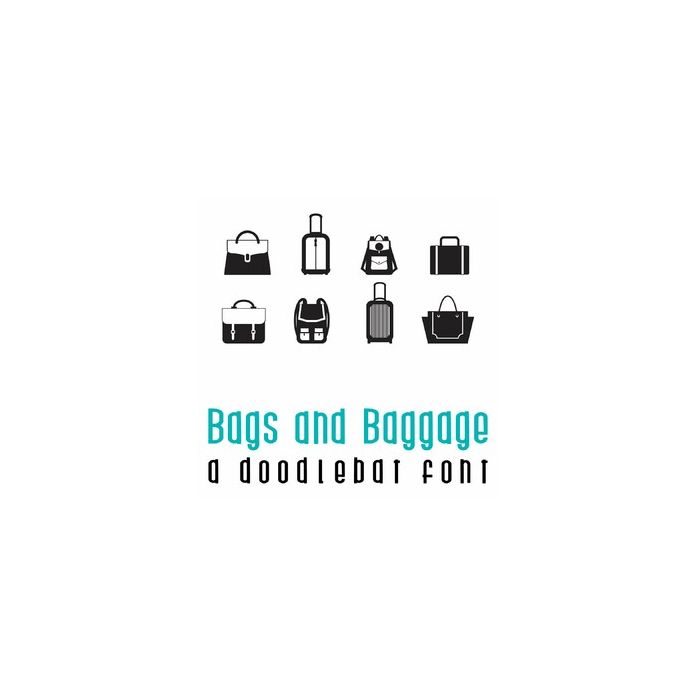
This fun doodlebat font features 26 different purses and suitcases. Perfect for cards, gifts, decor, crafts, scrap book pages, planner stickers and more!